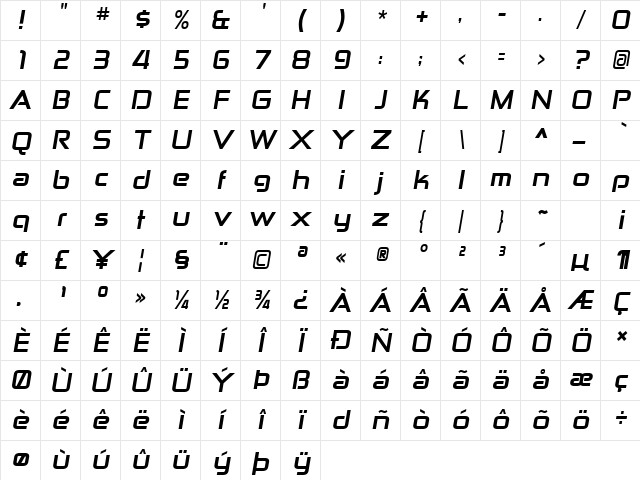
Zekton ExHv Italic Free Font
Zekton ExHv Italic
Design Context for Zekton ExHv
Zekton ExHv is a composed and adaptable typeface that performs quietly and consistently across a wide range of design contexts. The slanted form adds forward momentum and visual energy.
Pro Tip: Use Zekton ExHv for emphasis, pull quotes, and subheadings where its slanted energy can add rhythm to the layout.